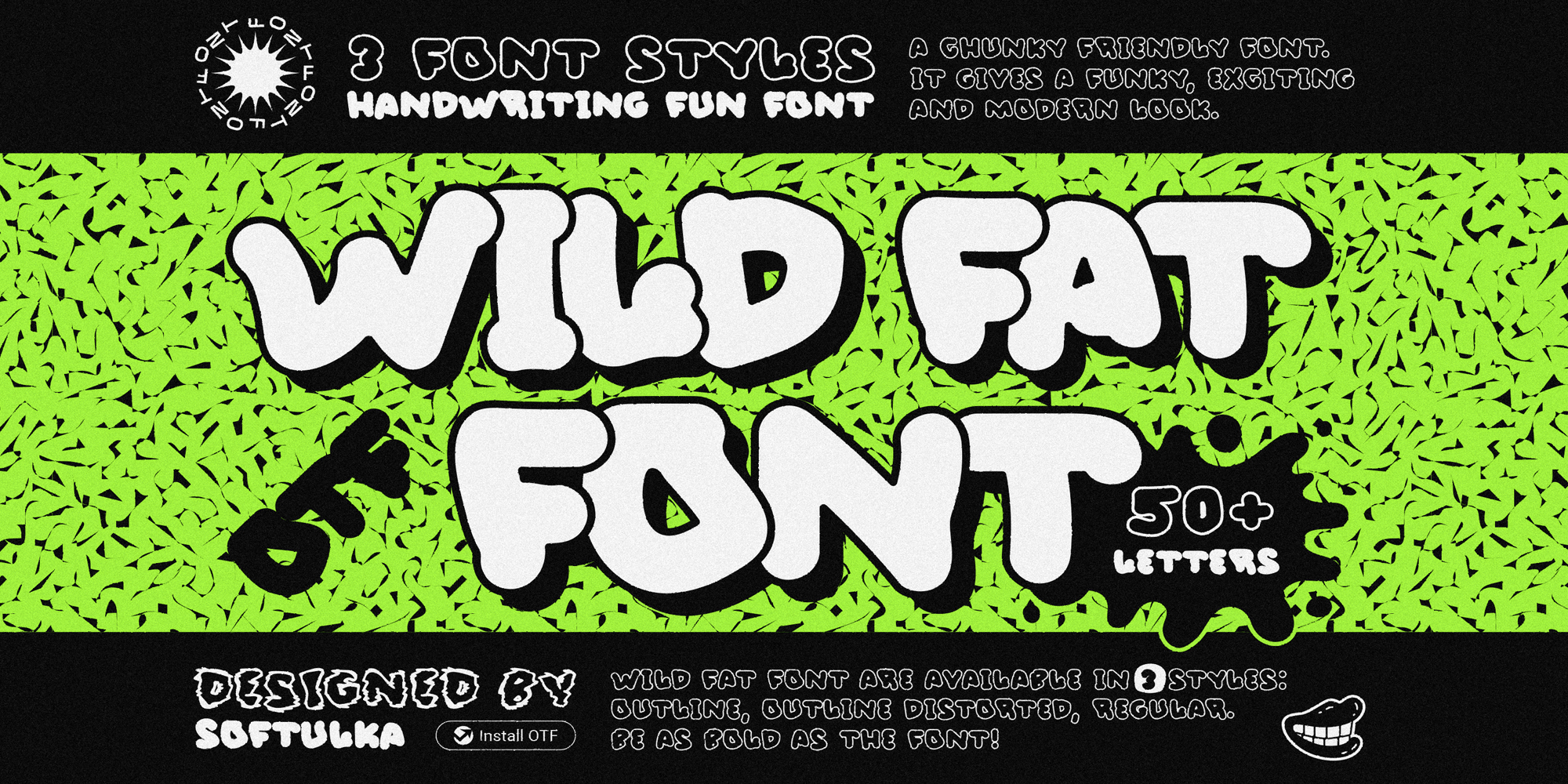
Wild Fat Font is ideal for bold advertising campaigns, playful children's branding, circus poster designs, fun food packaging, carnival event promotions, toy store signage, comic book titles, party invitation designs, entertainment venue marketing, and energetic projects that demand maximum visual impact and uninhibited creative expression with boundless personality and joyful exuberance.
What makes Wild Fat Font so exciting is its fearless embrace of bold proportions and playful energy that creates instant visual excitement and memorable brand presence. This typeface embodies pure fun and creative freedom, featuring extra-wide letterforms with exaggerated curves that suggest balloon animals and carnival attractions while maintaining excellent readability for contemporary entertainment and youth-focused applications that require maximum attention-grabbing power.
Wild Fat Font family encompasses multiple dynamic variations: Regular, Bold, Light, Extra Fat, Bouncy, Crazy, Jumbo, and Party versions. Each style maintains the font's inherent wild energy while offering different levels of visual boldness and playful character, providing designers with comprehensive tools for creating authentic fun-focused aesthetics that resonate with audiences seeking entertainment and joyful experiences.
The exuberant appeal of Wild Fat Font Free Download makes it exceptionally valuable for entertainment and children's industries requiring high-energy visual communication. This font successfully communicates fun and excitement, making it perfect for brands that want to create immediate emotional connection with audiences seeking entertainment and playful experiences. Its bold character works effectively across both digital entertainment platforms and vibrant print materials, while its distinctive oversized aesthetic creates instant recognition among audiences who appreciate bold design and uninhibited creative expression.